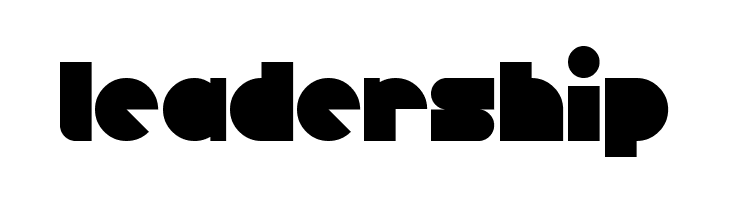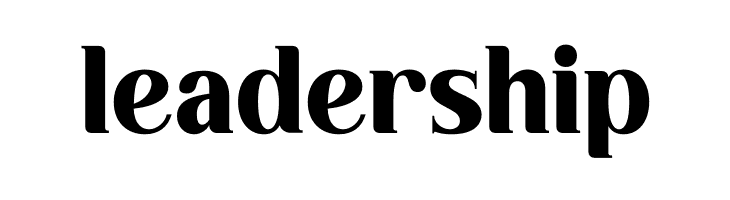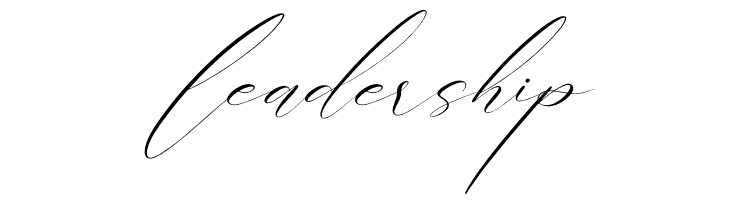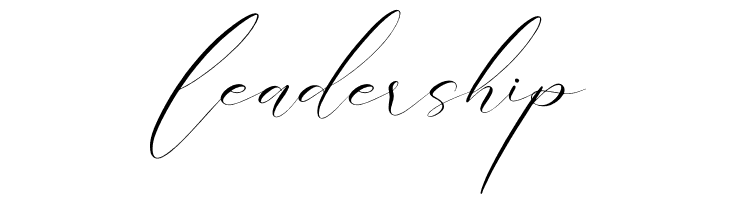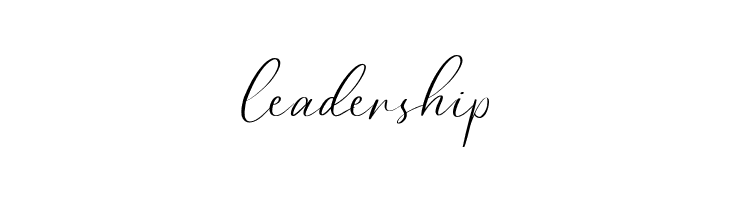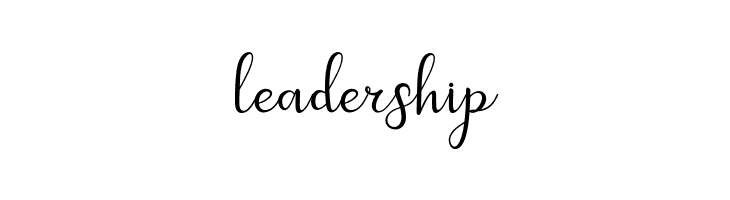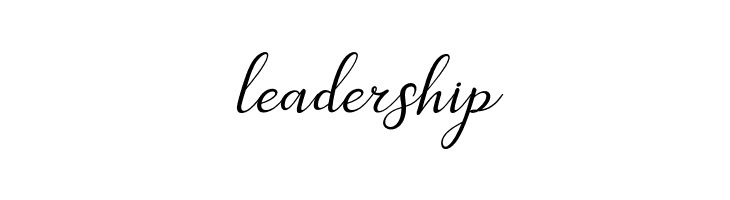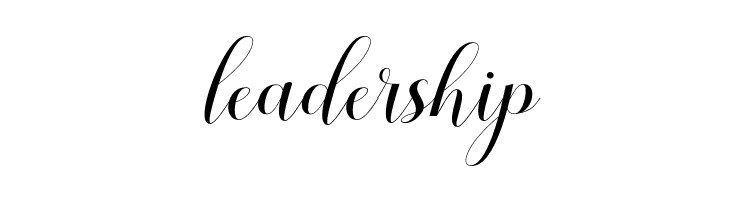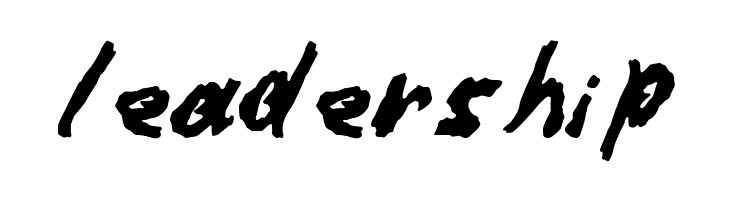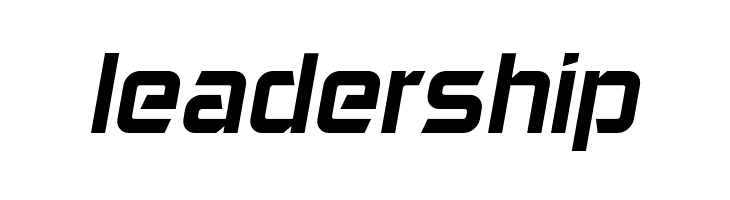
A bold, playful font with a hand-drawn, comic book style.
A modern, ultra-condensed font with elongated, sleek characters.
A bold, geometric font with a modern, outlined design.
A fluid and dynamic handwritten font with slanted, connected letters.
A bold, angular, and mystical font with sharp edges and high contrast.
A bold, decorative font with sharp, angular characters, ideal for fantasy themes.
A bold, italicized font with sharp, angular, and mystical design.
A mystical, angular font with sharp, bold strokes and a runic appearance.
A bold, angular font with a geometric and commanding presence.
A bold, angular font with a modern, edgy style.
A dynamic, angular italic font with sharp edges and a modern feel.
A playful, casual handwritten font with flowing strokes and a whimsical touch.
A playful, vintage-inspired font with medium contrast and whimsical lowercase letters.
A playful, handwritten font with smooth curves and a casual style.
A bold, geometric font with a modern and futuristic design.
An elegant script font with high contrast and flowing cursive style.
A bold, geometric font with angular, blocky letterforms.
A bold, geometric font with a modern and assertive style.
A modern, oblique font with bold, angular characters and a dynamic style.
A playful, handwritten font with smooth, flowing lines and rounded edges.
A bold, gothic blackletter font with intricate, ornate details.
An elegant script font with flowing, ornate cursive letters and intricate swashes.
An elegant script font with flowing, interconnected letters and intricate flourishes.
A bold, geometric font with sharp, angular shapes and a modern style.
An elegant, flowing script font with graceful curves and smooth strokes.
A bold, high-contrast font with a modern and classic appeal.
An elegant script font with flowing, cursive strokes and high contrast.
An elegant, flowing script font with intricate, cursive strokes and high contrast.
A graceful script font with flowing, cursive letters and decorative flourishes.
A graceful script font with flowing, connected strokes and elegant swashes.
An elegant script font with flowing, cursive letterforms and high contrast.
An elegant, flowing script font with a sophisticated cursive style.